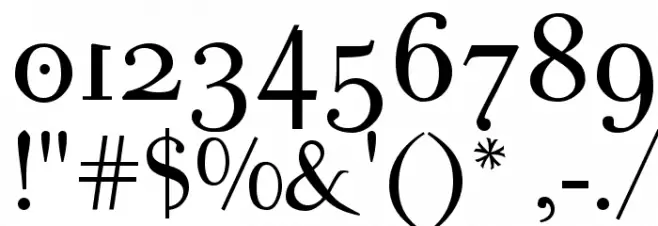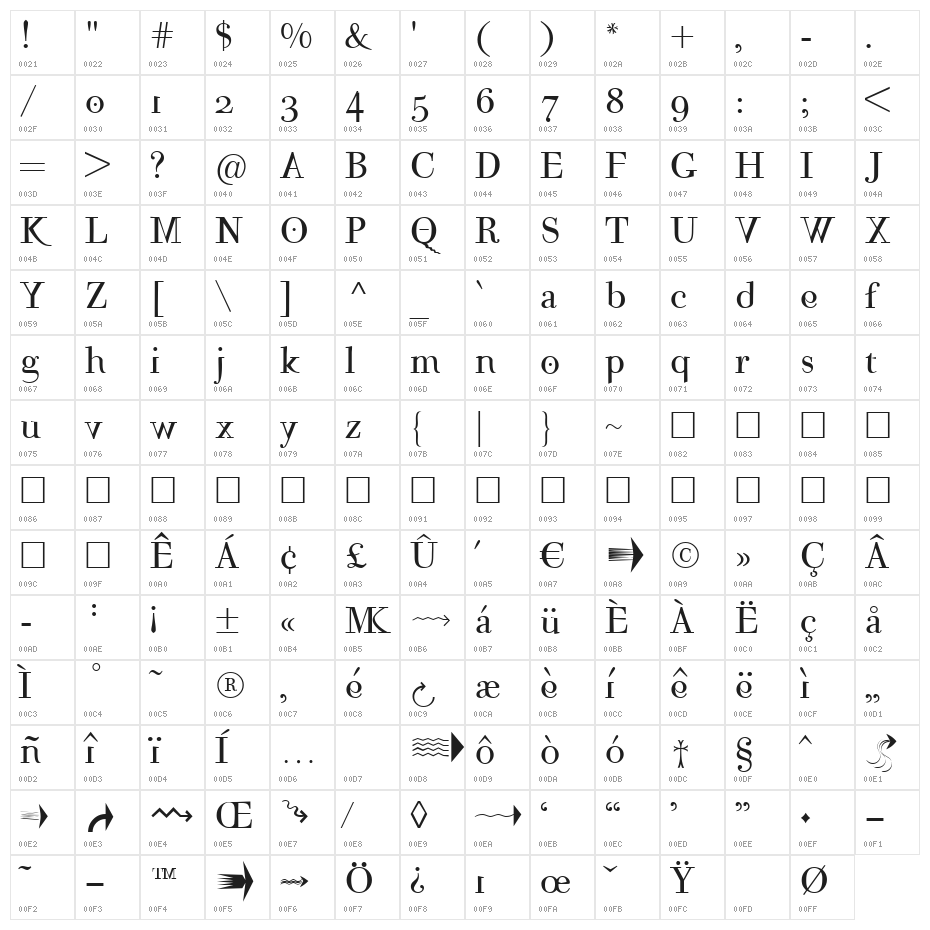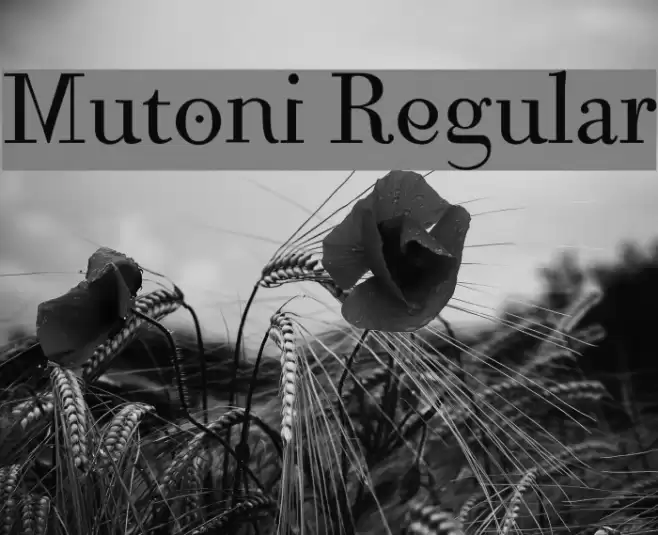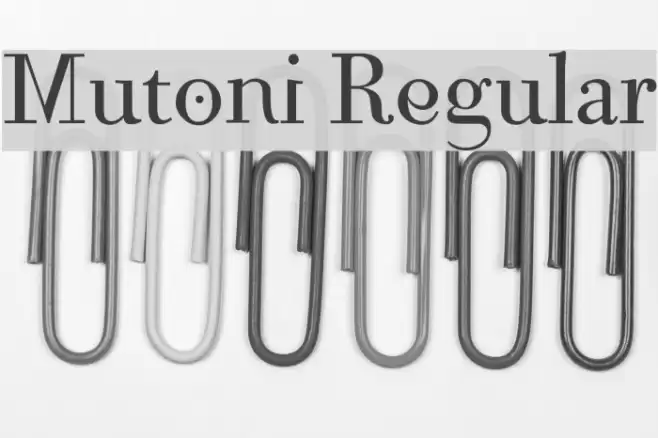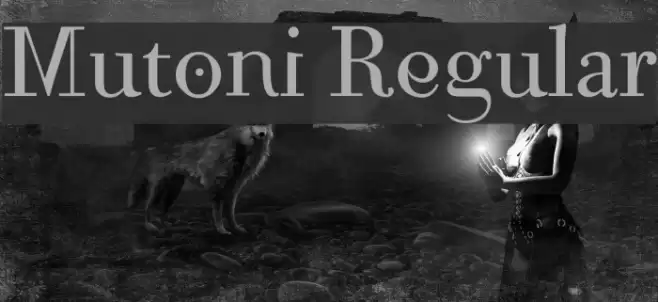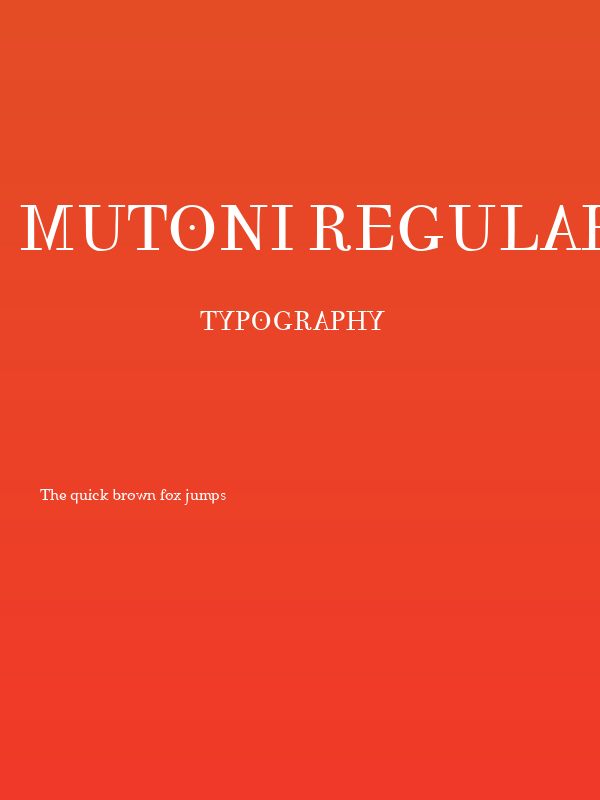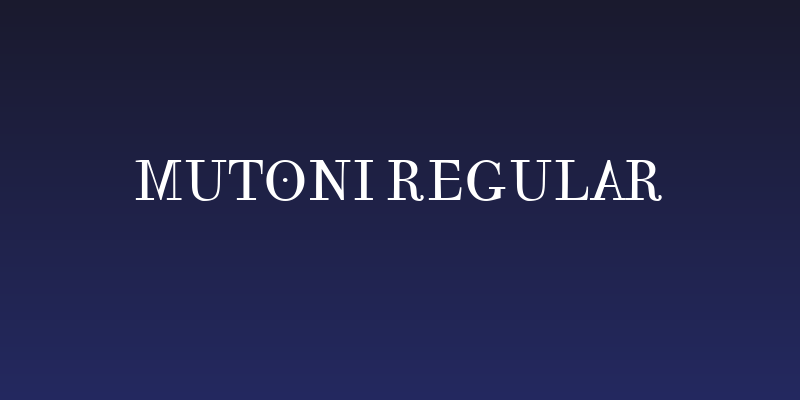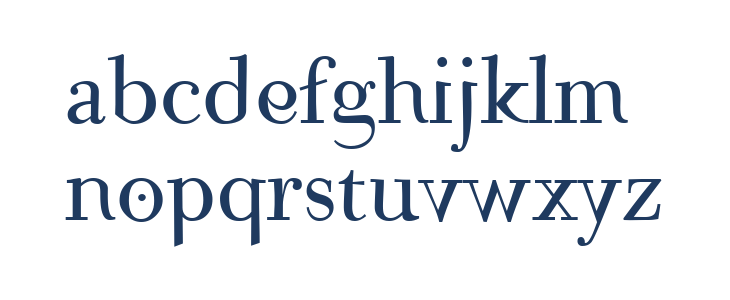
Mutoni Regular Font
Mutoni Regular Description
This font features a classic serif design with elegant, thin strokes and subtle curves that give it a sophisticated appearance. The uppercase letters are tall and stately, while the lowercase letters maintain a balanced and harmonious look. The numerals are clear and distinct, making them easy to read. Special characters are thoughtfully designed, adding to the font's versatility. The overall style is timeless, making it suitable for a variety of applications. The contrast between thick and thin strokes is moderate, providing a refined and polished look.
| Proposed Projects | Ideal for editorial design, book covers, formal invitations, and branding projects that require a touch of elegance. |